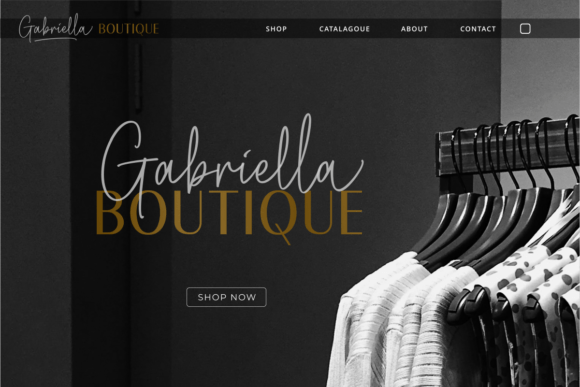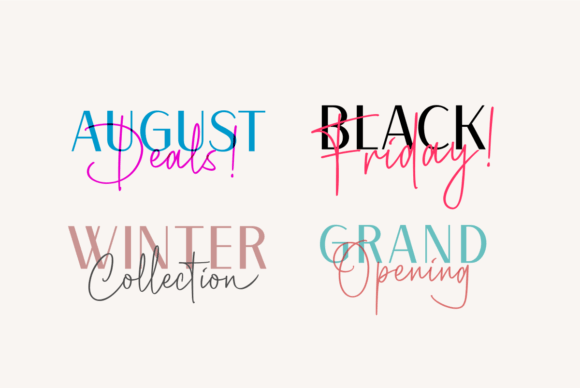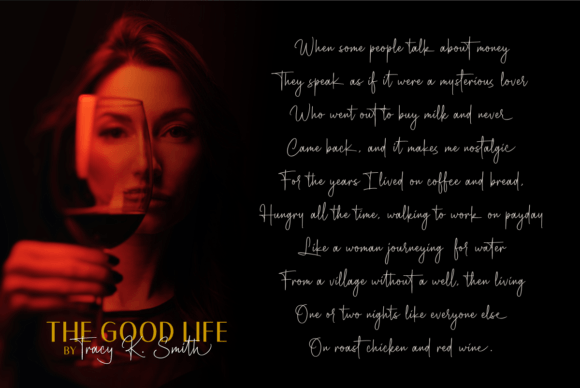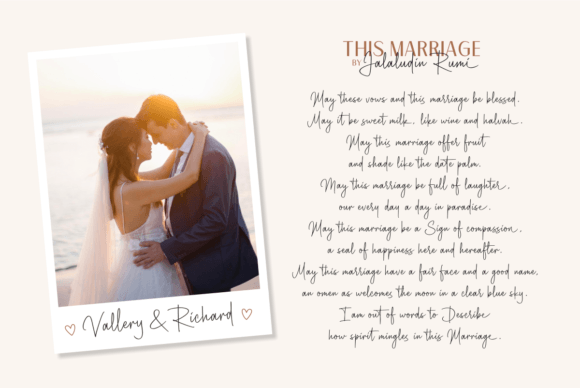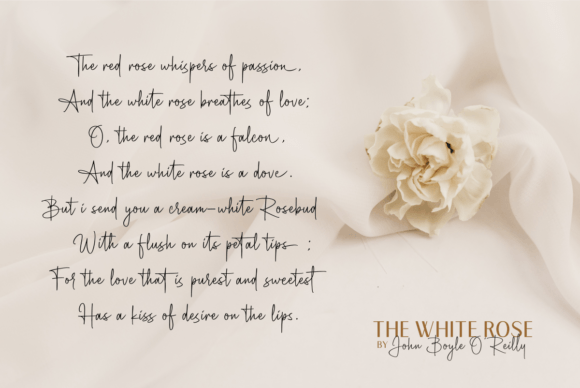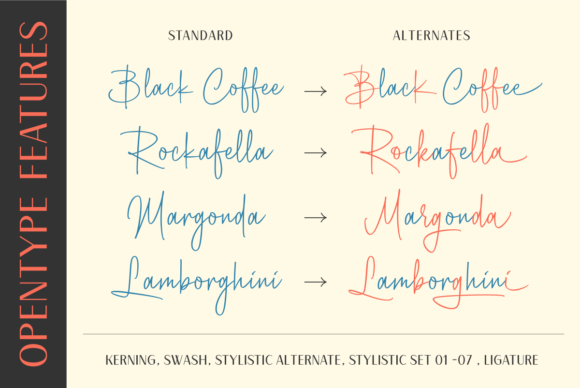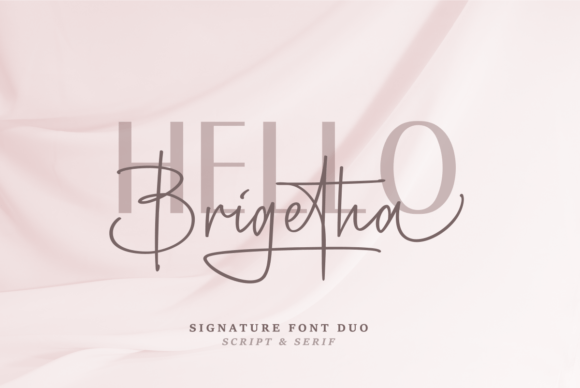
Introducing Brigetha Font: Elevate Your Designs with Elegance and Charm
Are you looking for a font that can add a touch of sophistication and elegance to your designs? Look no further than Brigetha Font. This beautiful font duo is perfect for wedding invitations, signature logos, place cards, and a wide range of other design purposes. In this article, we’ll explore the features and benefits of Brigetha Font and how it can elevate your crafting ideas.
A Lovely Collectible Pairing Duo
Brigetha Font is a stunning combination of an elegant serif and cursive font. This pairing duo is designed to work together seamlessly, creating a cohesive and harmonious look that’s perfect for a variety of design applications. The serif font provides a solid foundation, while the cursive font adds a touch of whimsy and flair. Together, they create a beautiful and authentic look that’s sure to impress.
Perfect for Wedding Invitations and Stationery
Wedding invitations and stationery are a great way to showcase the beauty of Brigetha Font. The elegant serif font is perfect for formal wedding invitations, while the cursive font adds a romantic touch to save-the-date cards, place cards, and other wedding stationery. With Brigetha Font, you can create stunning wedding designs that will leave a lasting impression on your guests.
Elegant and Versatile Design
Brigetha Font is not just limited to wedding invitations and stationery. Its elegant and versatile design makes it perfect for a wide range of crafting ideas, including:
- Branding and logos: Create a professional and sophisticated brand image with Brigetha Font.
- Labels and packaging: Add a touch of elegance to your product labels and packaging.
- Cards and invitations: Create beautiful and unique cards and invitations for any occasion.
- Signs and displays: Use Brigetha Font to create eye-catching signs and displays for your business or event.
Authentic and Charming
Brigetha Font is designed to deliver any message with authenticity and charm. The font’s elegant and cursive styles work together to create a beautiful and unique look that’s sure to capture the attention of your audience. Whether you’re designing for a wedding, business, or personal project, Brigetha Font is the perfect choice.
Brigetha Font offers a range of benefits for designers and crafters, including:
- Elegant and sophisticated design: Add a touch of elegance to your designs with Brigetha Font.
- Versatility: Use Brigetha Font for a wide range of design applications, from wedding invitations to branding and labels.
- Unique and authentic look: Create a unique and authentic look that’s sure to stand out from the crowd.
In conclusion, Brigetha Font is a beautiful and elegant font duo that’s perfect for adding a touch of sophistication to your designs. With its elegant serif and cursive styles, Brigetha Font is ideal for wedding invitations, signature logos, place cards, and a wide range of other design purposes. Whether you’re a designer or crafter, Brigetha Font is a great way to elevate your crafting ideas and create stunning designs that will leave a lasting impression.
Get Creative with Brigetha Font